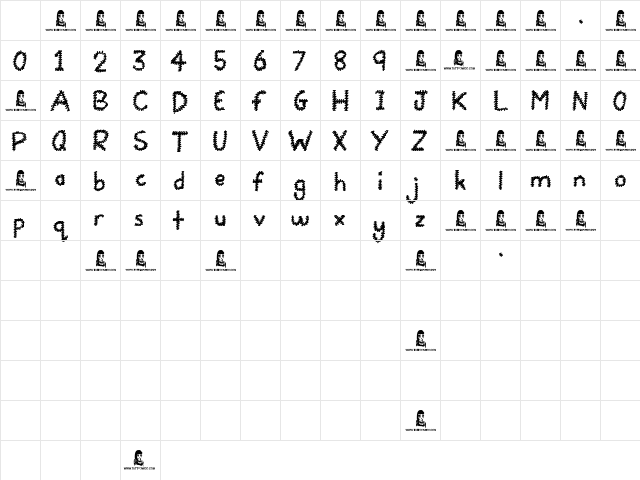
Complete Squiggles Regular glyph index. Displaying only characters natively supported by Squiggles Regular font.
Squiggles is a composed and adaptable typeface that performs quietly and consistently across a wide range of design contexts.